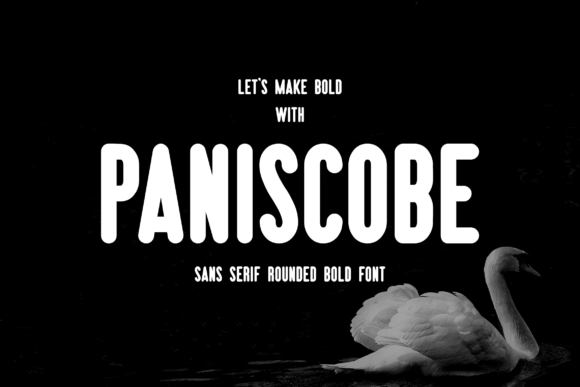
Unleash the Allure of Paniscobe: The Epitome of Sans Serif Elegance
In a world saturated with digital noise, it's the little details that make all the difference. As you embark on your quest for a text font that captivates and engages, allow us to introduce you to Paniscobe - a sans serif masterpiece that will transform your website into a visual symphony.
Picture this: your website's words dancing across the screen, each letter a testament to sophistication and clarity. Paniscobe's bold strokes command attention without overpowering, creating a harmonious balance that invites readers to delve into your content. Whether you're crafting a captivating magazine spread, designing a professional job posting, or delivering a presentation that leaves a lasting impression, Paniscobe rises to the occasion.
With its inherent versatility, Paniscobe effortlessly adapts to a multitude of contexts. Its clean lines and crisp edges lend a touch of modernity to business documents, while its captivating curves add a touch of playfulness to personal projects. Paniscobe's versatility knows no bounds, making it the perfect choice for those who demand excellence in typography.
Step into the realm of Paniscobe and unlock a world of possibilities. From trademarks that demand attention to signatures that carry the weight of authority, Paniscobe empowers your words with an unmistakable presence. Let your message shine through, leaving an indelible mark on your audience.